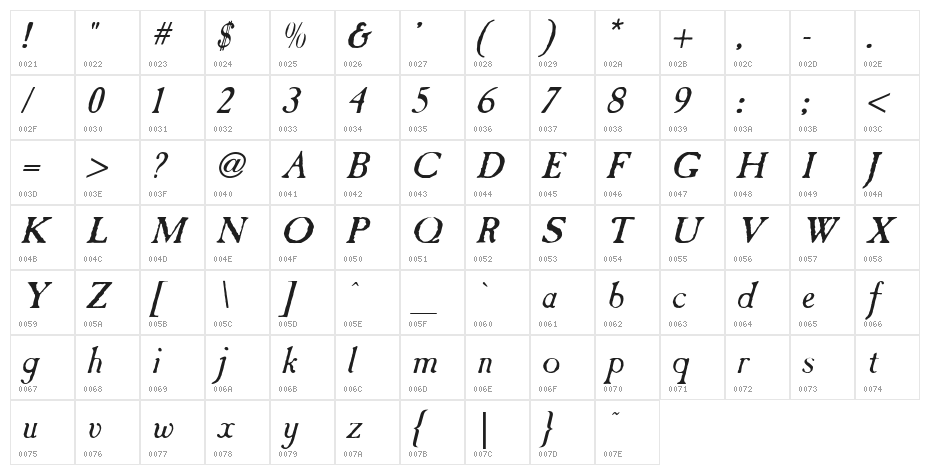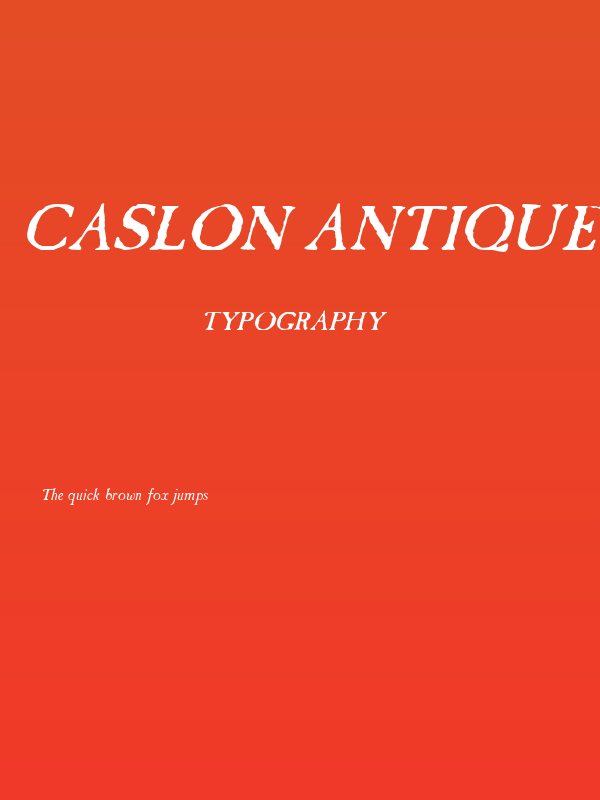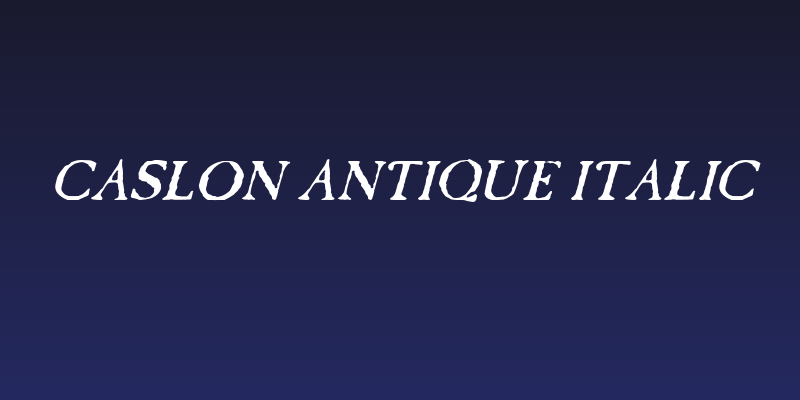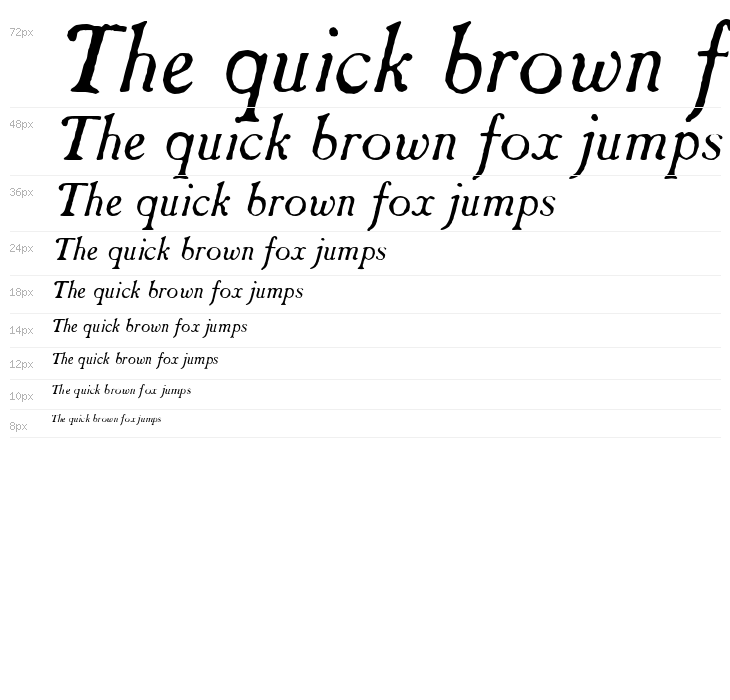
Caslon Antique Italic Font
Caslon Antique Italic Description
This font exudes a classic and antique charm with its italicized and slightly slanted characters. The serifs are pronounced, giving it a traditional and elegant appearance. The strokes vary in thickness, providing a medium contrast that enhances readability while maintaining a vintage aesthetic. The uppercase letters are bold and commanding, while the lowercase letters have a more delicate and flowing style. Numbers and special characters are consistent with the overall design, ensuring uniformity across different uses.
| Proposed Projects | Ideal for historical documents, vintage-themed designs, book covers, and elegant invitations. |